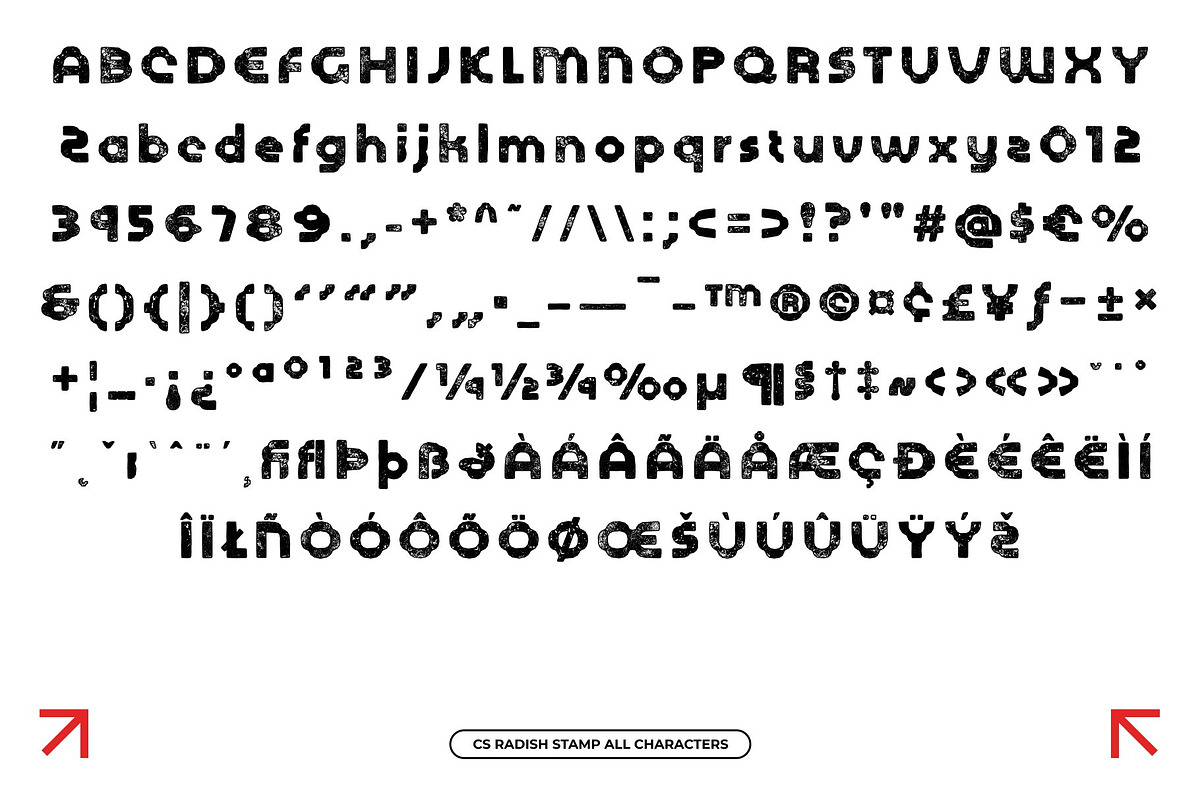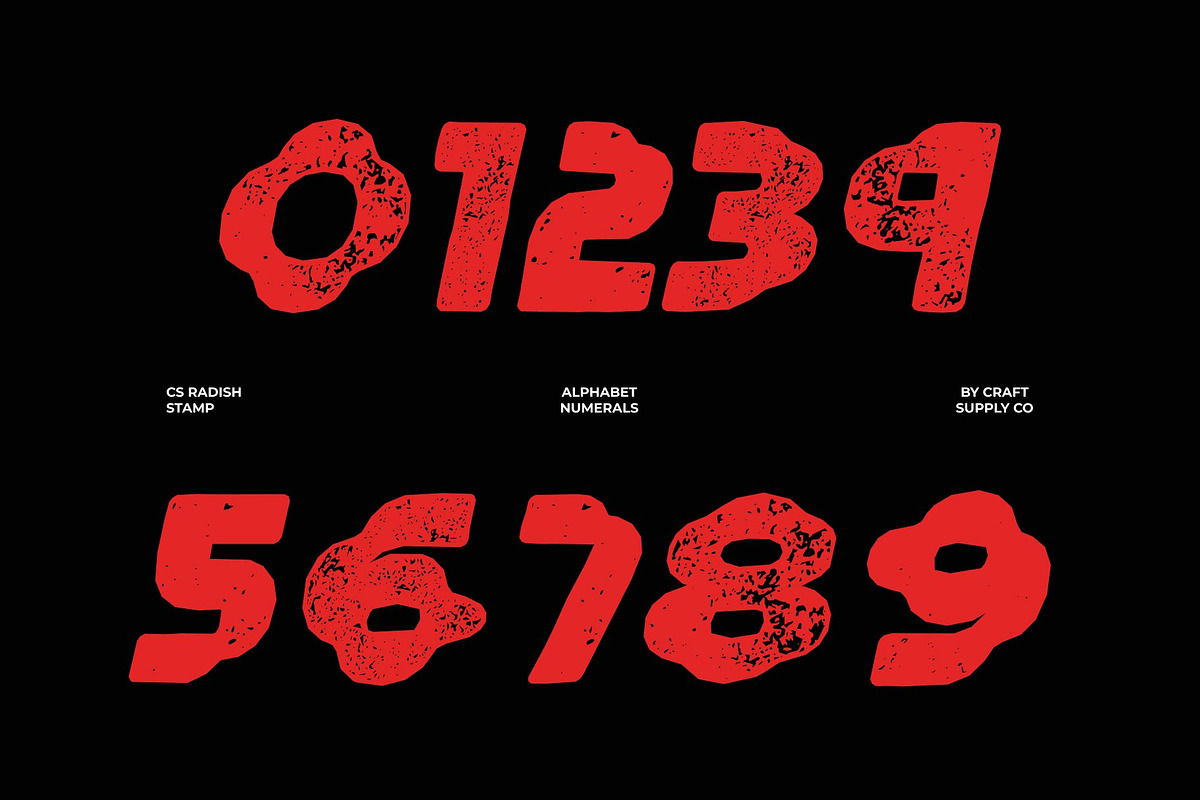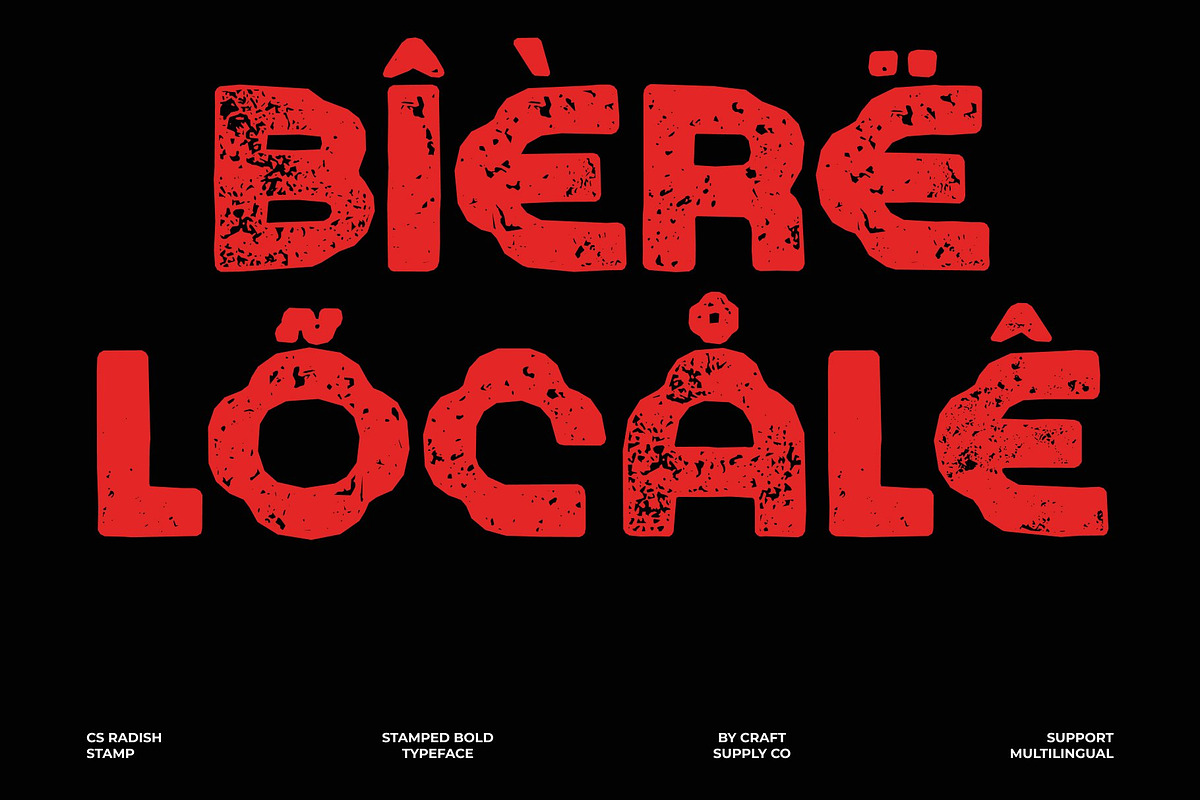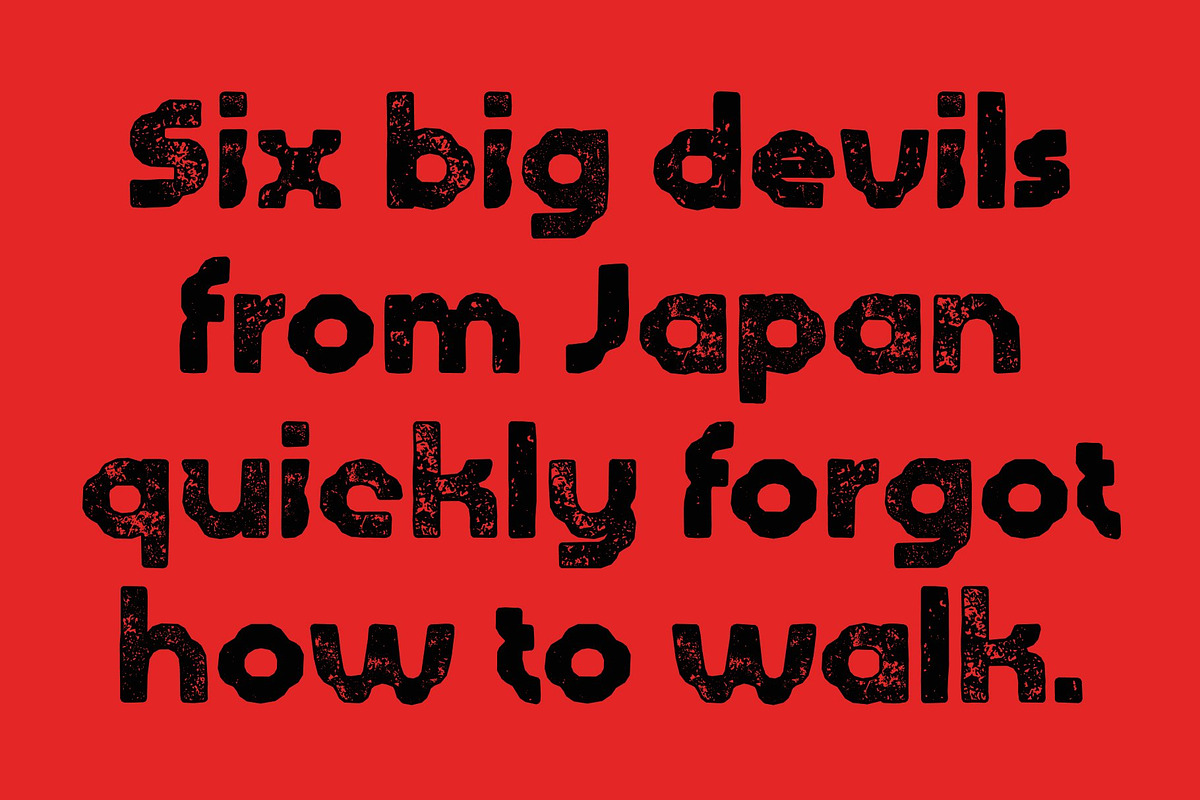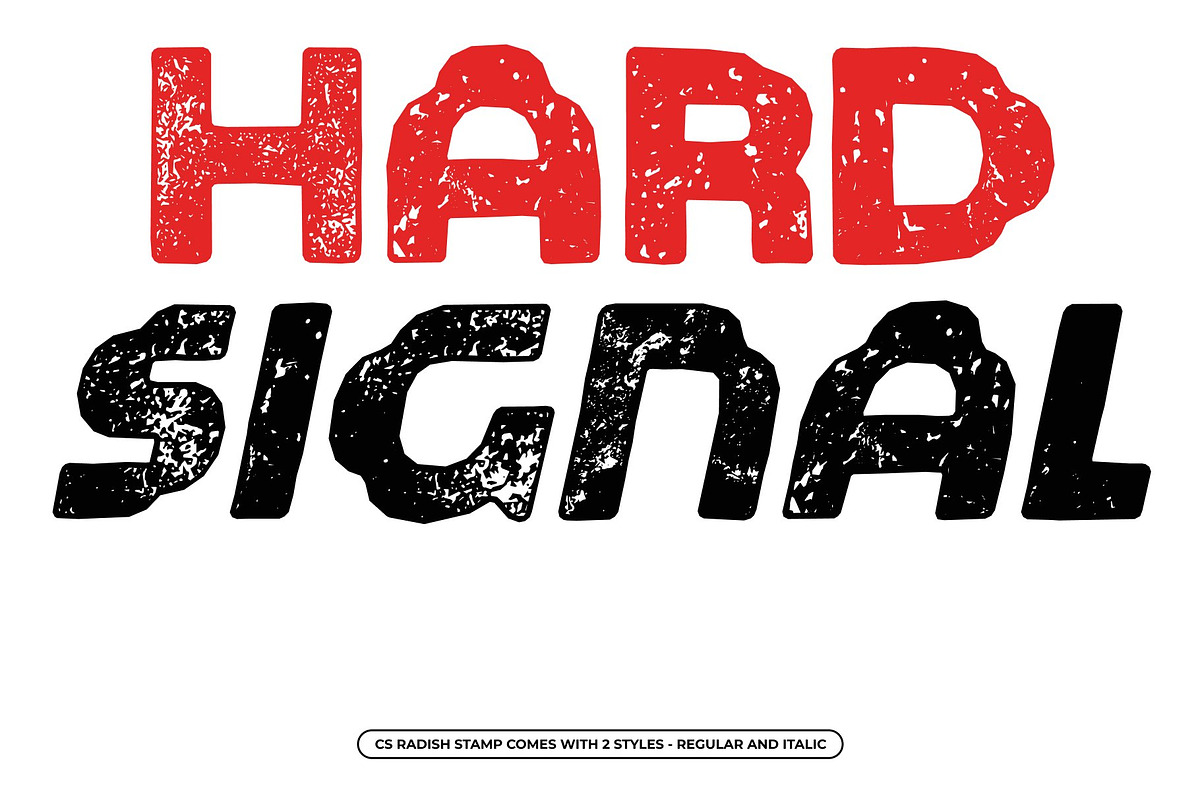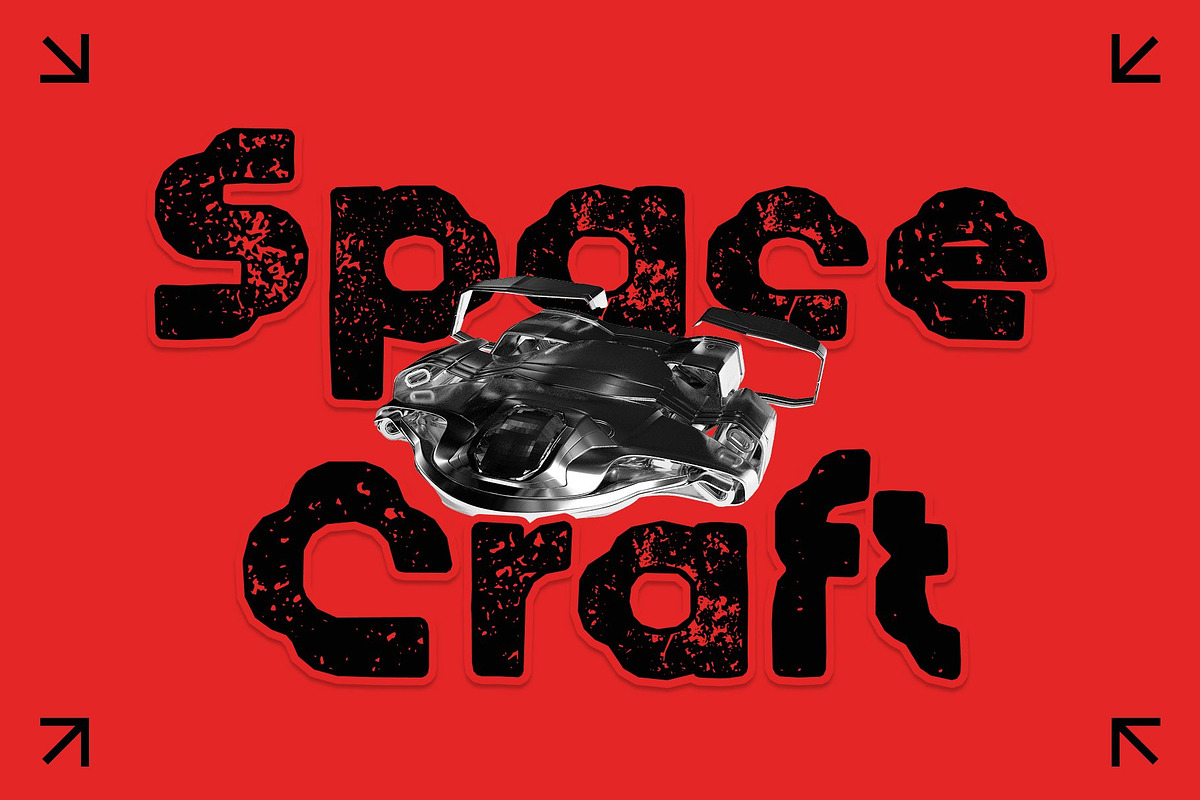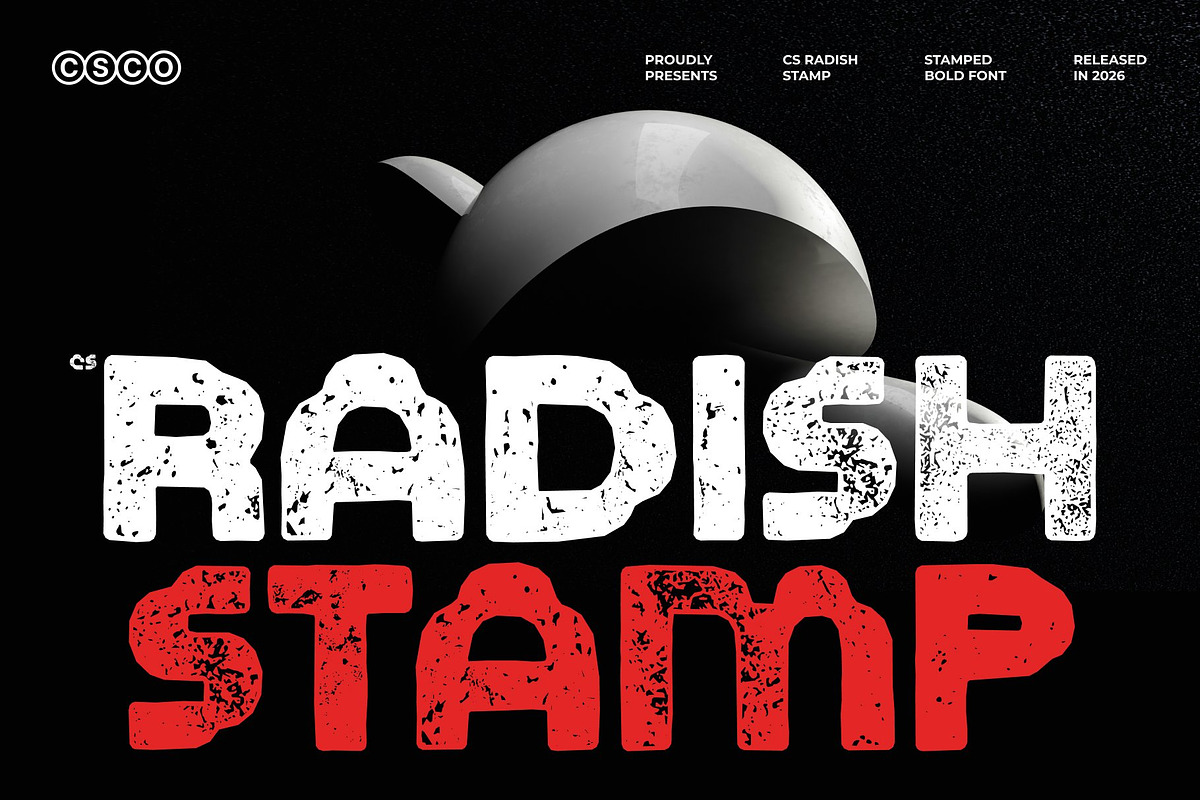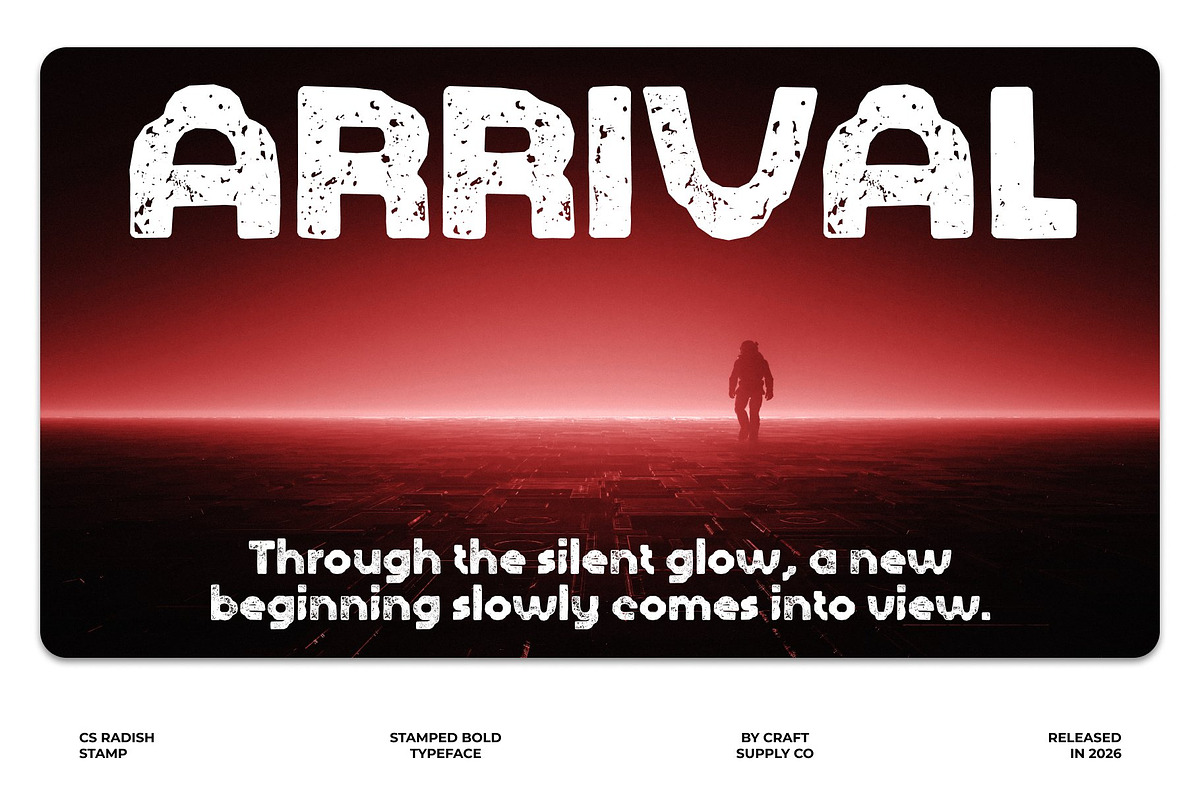
CS Radish Stamp
CS Radish Stamp – Futuristic Display Font: Where Techno Energy Meets Vintage Texture
Bold Futuristic Shapes with Strong Visual Impact This is a techno-inspired display font designed with bold futuristic forms that instantly command attention. Its sharp structure and dynamic modern styling create a powerful visual presence filled with energy, innovation, and digital-inspired character. Every letter feels striking and expressive, making the font perfect for projects that seek a strong contemporary and high-tech appearance.
Modern Futuristic Style with Playful Personality This font delivers a typographic voice that feels modern, energetic, and visually engaging. Despite its strong techno-inspired structure, the font maintains a playful and approachable personality suitable for creative and imaginative design projects.
Stamp Texture with Authentic Vintage Feel This font introduces a rough and uneven finish inspired by traditional print techniques. This textured effect adds vintage character, artistic depth, and authentic handcrafted charm to every letter, creating a unique contrast between futuristic precision and old-style texture.
Perfect for Branding, Posters, and Creative Visuals This is perfect for playful branding, children’s designs, posters, labels, packaging, merchandise, and creative promotional materials. Its futuristic forms and textured vintage detailing make it ideal for logos, signage, event graphics, and visual identities that seek a bold yet authentic appearance. With its fusion of techno-inspired modernity and handcrafted stamp texture, this font delivers a distinctive and unforgettable typographic statement.